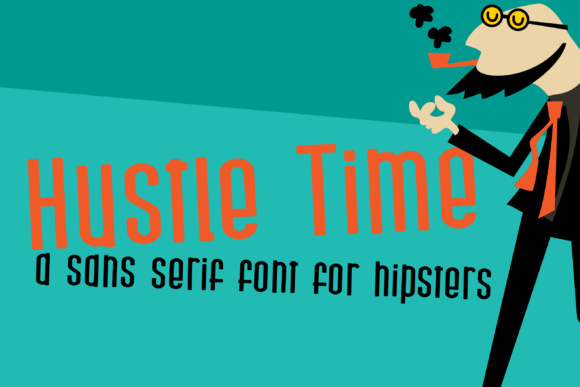
Introducing Hustle Time Font - A Sans Serif Masterpiece for Bold and Modern Designs
In the world of typography, there are fonts that blend in and fonts that make a statement. Hustle Time Font is undoubtedly the latter. This sans serif gem, brought to you by Illustration Ink, is no ordinary font; it's a game-changer that will transform your designs into captivating masterpieces.
With its tall, simplistic lowercase and stubby descenders, Hustle Time Font exudes an air of confidence and modernity. It's the perfect choice for designers seeking to create logos, headlines, posters, and other projects that demand attention.
But what truly sets Hustle Time Font apart is its versatility. This font isn't limited to one style or aesthetic; it effortlessly adapts to a wide range of design concepts, from minimalist to playful and everything in between. Whether you're crafting a sleek business card or a vibrant social media post, Hustle Time Font will effortlessly elevate your designs to new heights.
So, why settle for ordinary when you can have extraordinary? Embrace the power of Hustle Time Font and unlock a world of creative possibilities. Let your designs speak volumes with this font that embodies boldness, simplicity, and endless versatility. Unleash your creativity and make a lasting impact with Hustle Time Font.
Benefits of Using Hustle Time Font:
- Effortlessly create captivating logos, headlines, posters, and other design projects.
- Elevate your designs with a font that exudes confidence and modernity.
- Easily adapt to a wide range of design concepts, from minimalist to playful.
- Unleash your creativity and make a lasting impact with a font that embodies boldness, simplicity, and endless versatility.